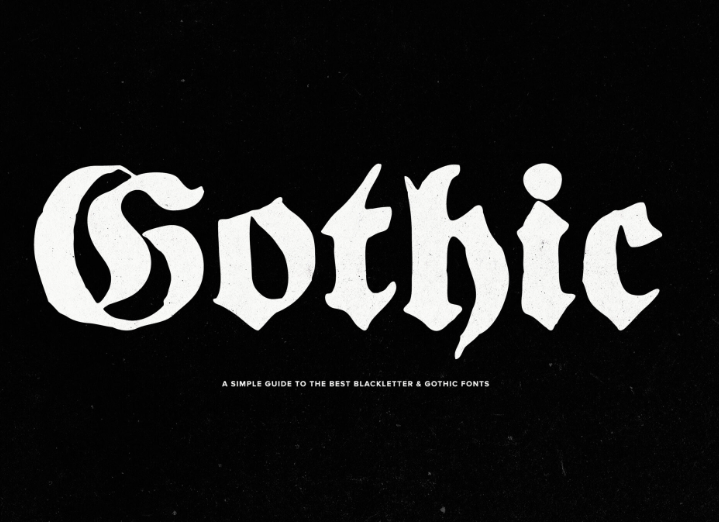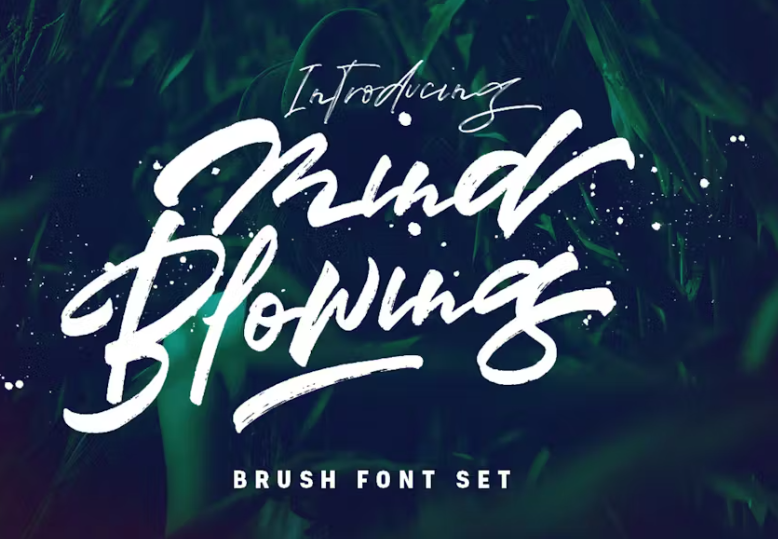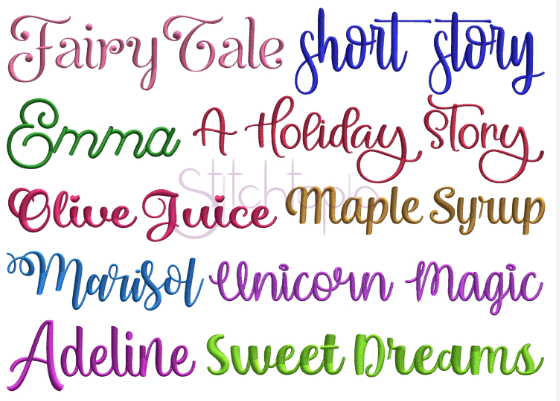
Top 5 Free Calligraphy Fonts Generator for Fancy Styles
Looking for a free calligraphy fonts generator? From creating stunning invitations to captivating social media posts, learn how these tools empower your creativity.
Are you looking to add a touch of elegance to your designs with stunning calligraphy fonts? This comprehensive guide introduces the top free calligraphy fonts generator that can transform your invitations, posters, and digital artwork into a variety of sophisticated styles. Moreover, we'll discover unique features of each generator that help you enhance your creativity.
1. Blackletter/Gothic
Blackletter, also known as Gothic, features intricate, bold strokes that evoke the look of medieval manuscripts. This font is ideal for creating a historical or vintage feel. It's often used in certificates, logos, and themed event materials.
2. Copperplate
Copperplate calligraphy is distinguished by its elegant, fluid lines and varied stroke widths. Due to its sophisticated and refined appearance, it is commonly used for formal invitations and certificates. This font adds a touch of classic elegance to any design.
3. Brush Script
Brush Script mimics the look of hand-painted lettering with its fluid, dynamic strokes. It’s perfect for projects that need a personal, artistic touch, such as greeting cards and posters. This font conveys a sense of creativity and spontaneity.
4. Monoline
Monoline fonts feature consistent stroke widths, giving a clean and modern look. They are versatile and can be used in both formal and casual designs. This font is often used in logos, branding materials, and web design for its simplicity and clarity.
5. Script Fonts
Script fonts include a wide range of styles, from elegant and formal to casual and playful. They are ideal for adding a personal, handwritten feel to any project. Its common uses include invitations, branding, and social media graphics.
Top 5 free calligraphy fonts generator
As you explore the world of calligraphy fonts, you'll discover a range of tools suitable for various purposes. These generators give designers of all skill levels a variety of possibilities for creating elaborate, gorgeous layouts. Let's explore the top 5 free calligraphy font generators.
1. Lettering.org
In the branch of calligraphy font generation, Lettering.org stands out as a user-friendly online platform. It provides a diverse array of font styles to suit any project. With its intuitive interface and navigation, beginners and experienced designers alike can easily create stunning calligraphy fonts for various applications.
• Easy to use with an intuitive interface.
• Wide variety of font styles available.
• Limited customization options.
2. Calligraphr
Calligraphr offers a unique approach to calligraphy font creation, allowing users to transform their handwriting into custom fonts. This versatile tool supports multiple languages and provides both free and premium versions, making it accessible to a wide range of users seeking personalized and stylish font options.
• Ability to create custom fonts from your handwriting.
• Supports multiple languages.
• Easy-to-follow tutorials are available.
• Requires registration to use.
3. FontForge
FontForge emerges as a powerful open-source font editor for users who require advanced customization and flexibility in font design. With its extensive range of editing tools and support for various font formats, FontForge empowers designers to create intricate and unique calligraphy fonts with ease.
• Extensive range of editing tools.
• Supports various font formats.
• Completely free and open-source.
• Large community for support and resources.
• Steeper learning curve.
• The interface can be overwhelming for beginners.
4. TextFX
TextFX simplifies the process of generating calligraphy fonts with its fast and easy-to-use online platform. Offering a wide selection of pre-designed font styles, TextFX eliminates the need for complex customization, making it an ideal choice for users who seek quick and efficient results without compromising quality.
1. Can I download a calligraphy word generator?
Yes, you can download various calligraphy word generators on your desktop. These tools typically allow you to type in your text and choose from different calligraphy styles. For a smooth experience with built-in calligraphy fonts, the CapCut desktop is an excellent choice for all your video editing needs.